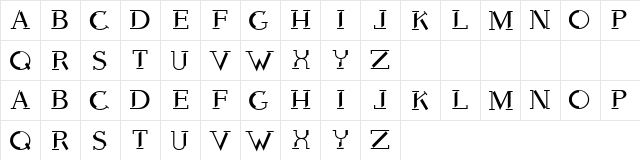
Voodoo Dolls Regular
Design Context for Voodoo Dolls Typeface
Voodoo Dolls is a composed and adaptable typeface that performs quietly and consistently across a wide range of design contexts.